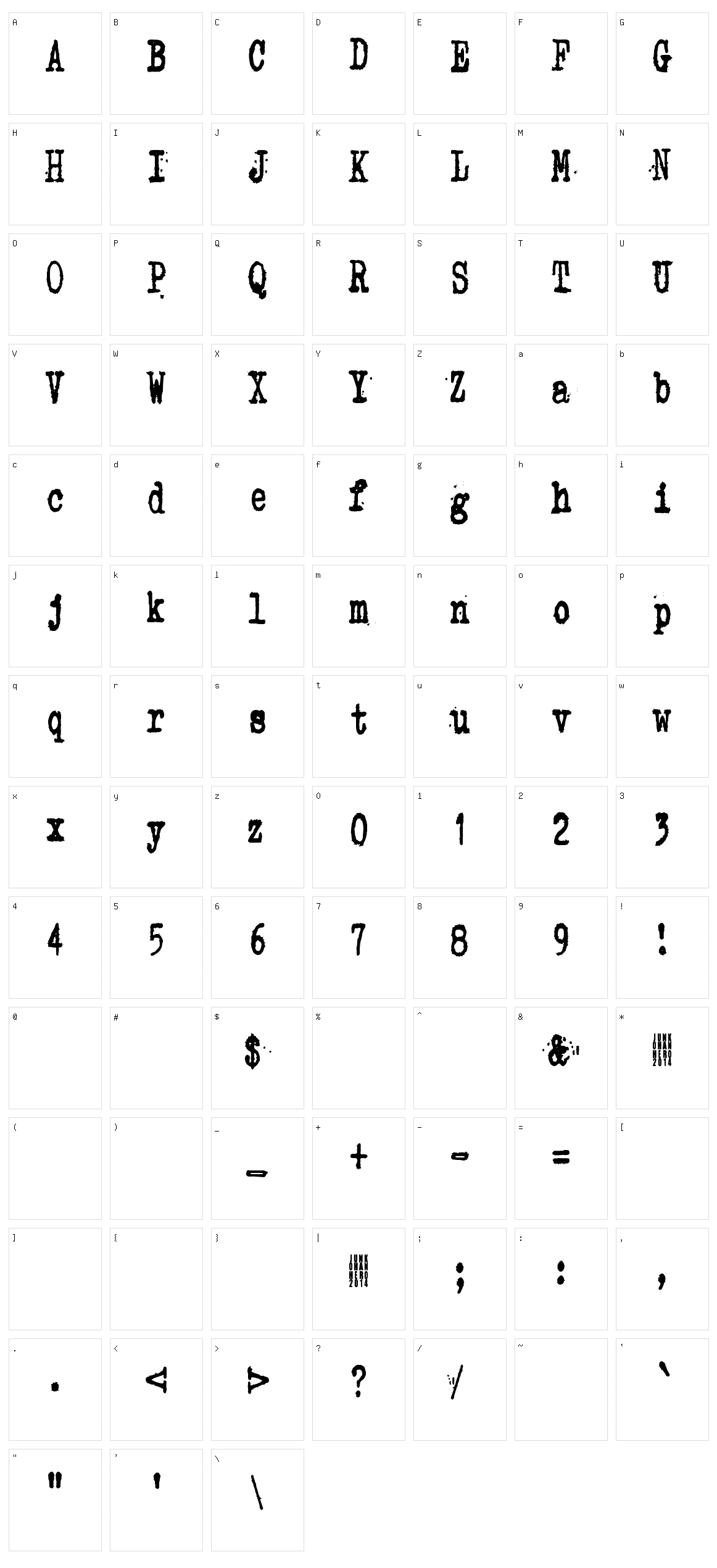
The free font Zombie Queen is carefully designed by junkohanhero, showcasing a thoughtful balance of creativity and usability and falls under the Typewriter font style. When you download the ZIP file, it contains only 526.16 KB of font files, making it lightweight and quick to download. Please review the license details below to understand permitted usage and distribution rights. If license information is not available, we recommend using this font for personal projects only or contacting the author directly for commercial usage permissions.